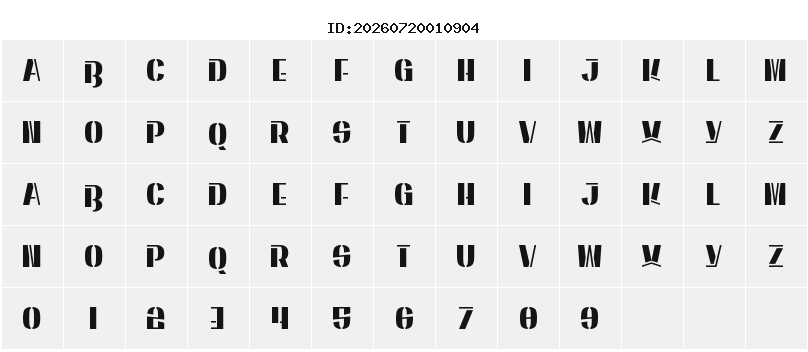
• Font Name: Energetic Star
• Designer: AM
About Energetic Star.otf
Energetic Star.otf is a modern, elegant sans-serif font designed for ultimate readability and visual harmony. Perfect for branding, headlines, web design, and print materials.